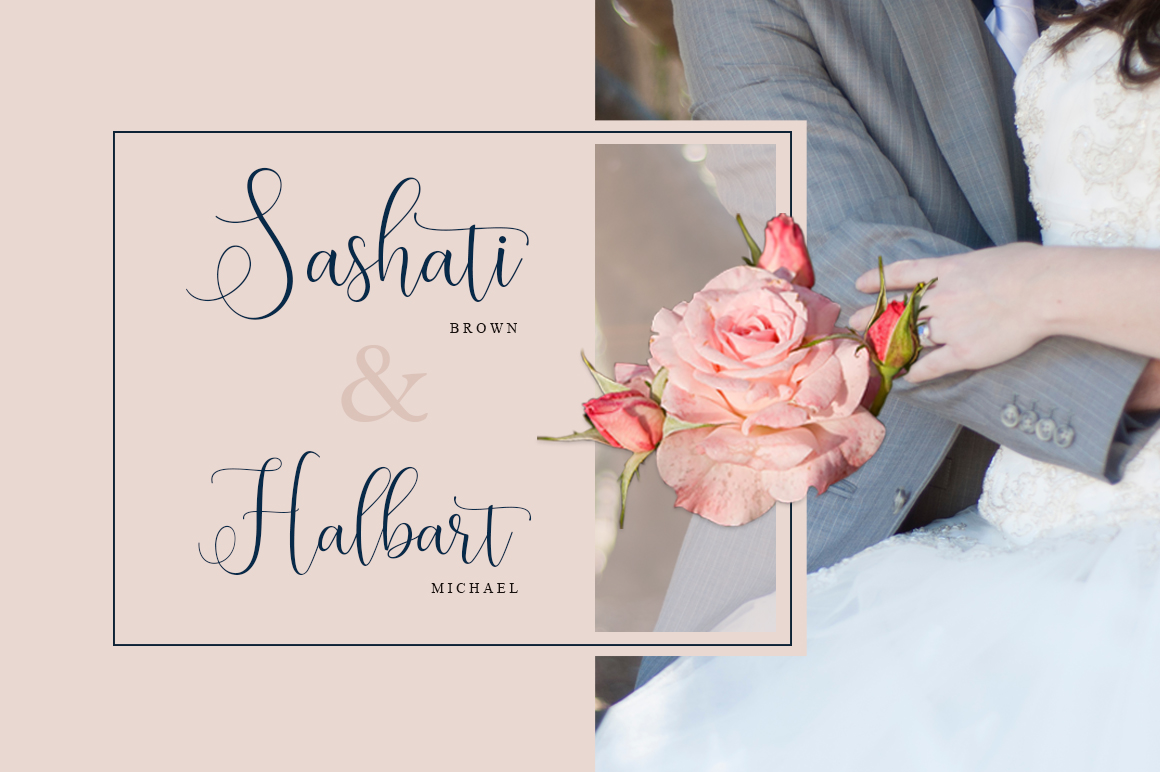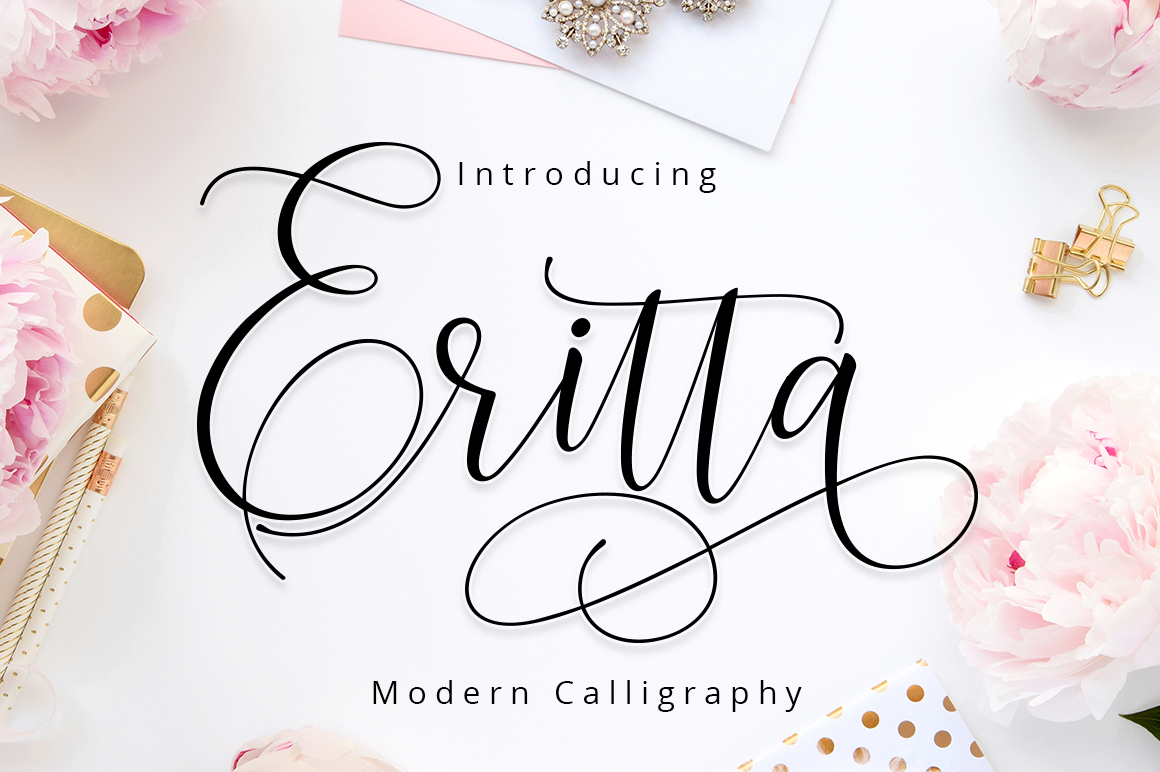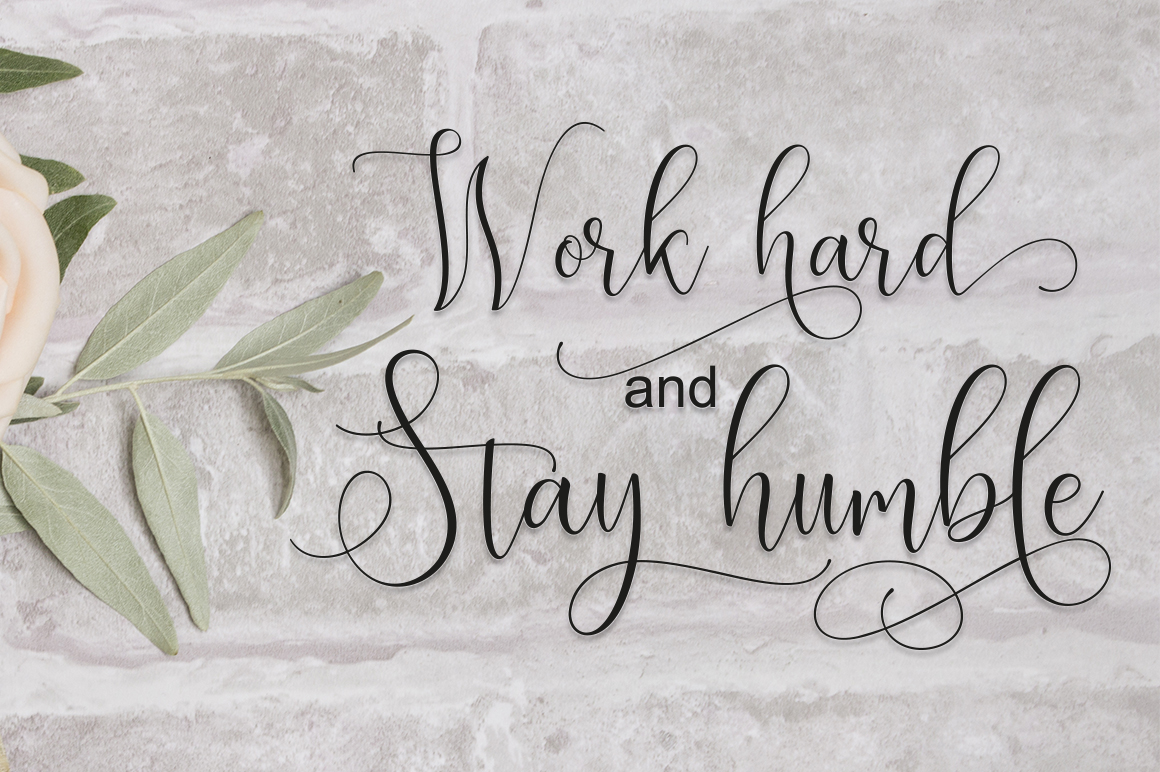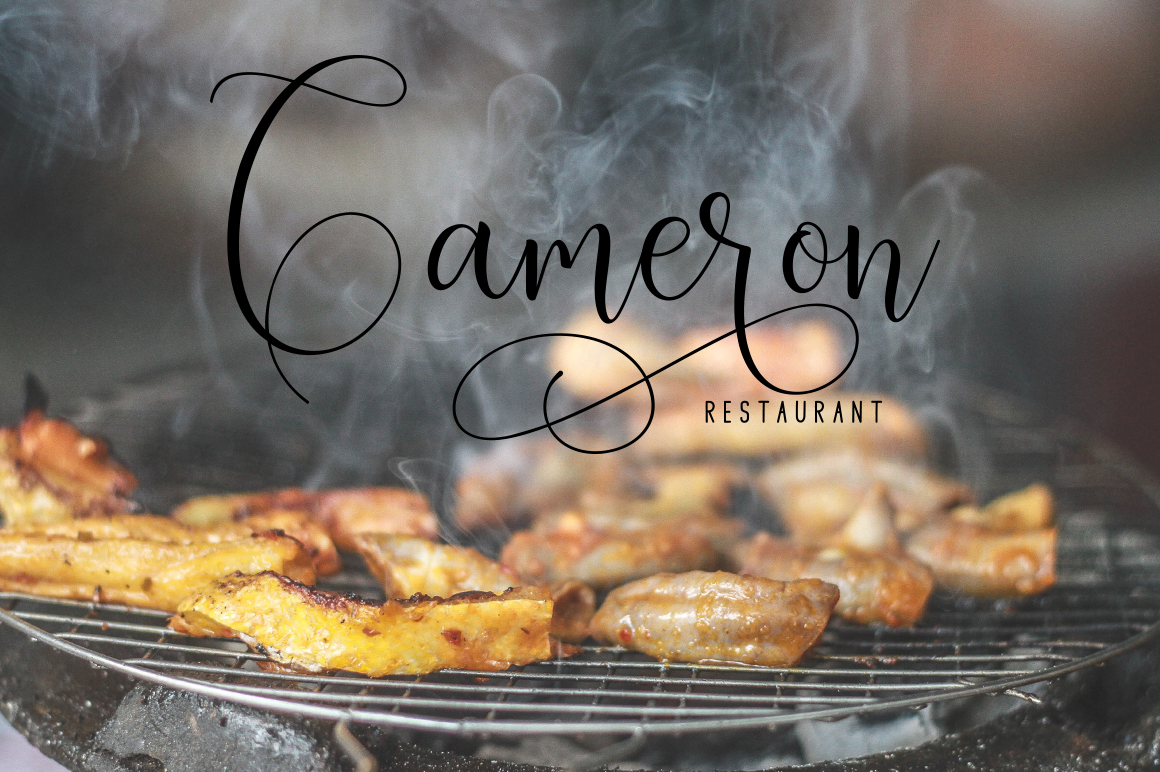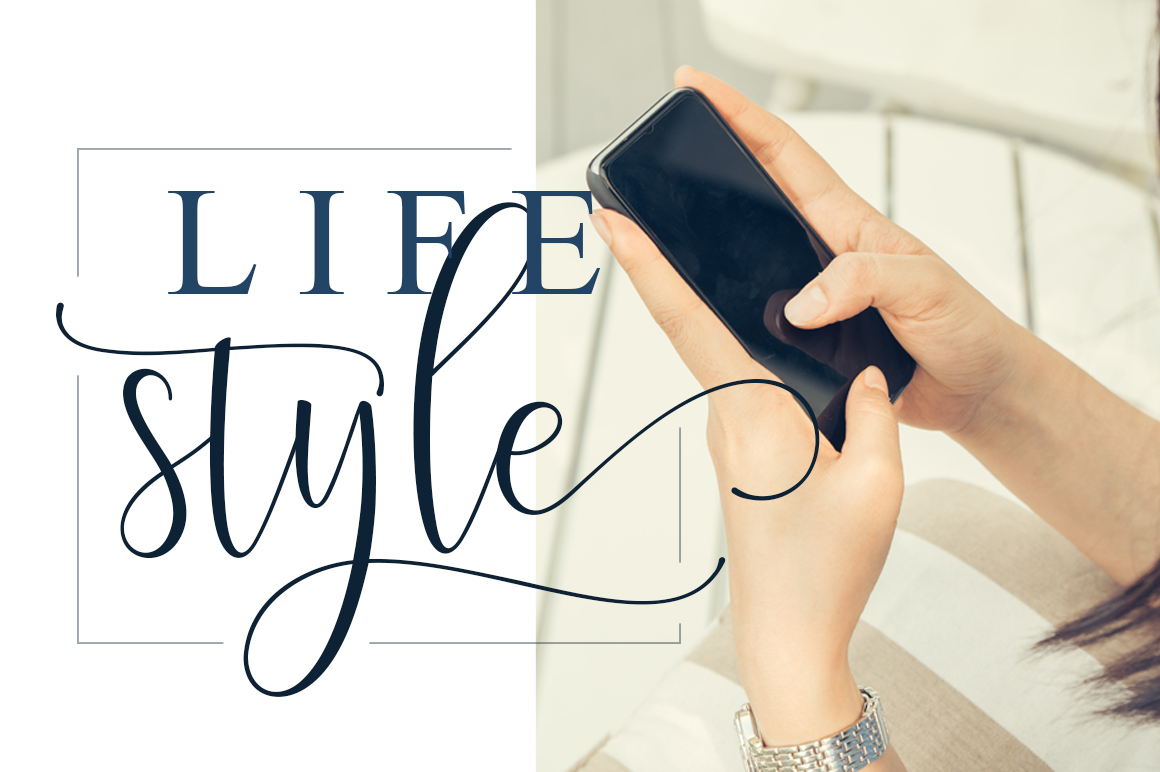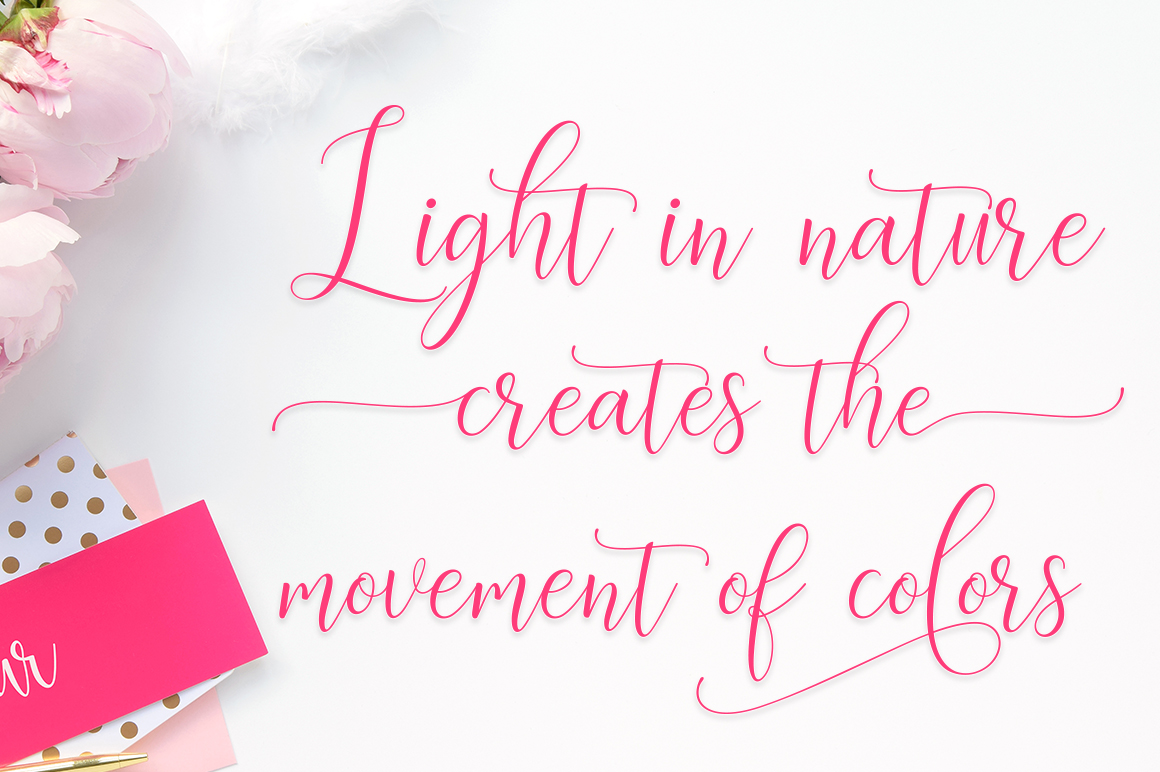
Eritta Font: Elevate Your Designs with Elegance and Flair
In the world of typography, few fonts manage to strike a balance between elegance and playfulness. The Eritta Font is one such exceptional find, a modern calligraphy-style family that can instantly transform your designs from mundane to magnificent. With its four variations – Regular, Slant, Bold, and Slant Bold – Eritta offers a versatile range of options for designers and crafters looking to add a touch of sophistication and vibrancy to their work.
The Beauty of Eritta: A Modern Calligraphy Family
The Eritta Script stands out for its fluid, calligraphic strokes that bring a sense of movement and grace to any design. Whether you’re working on a branding project, a wedding invitation, or a digital graphic, Eritta’s elegant lines and curves can add a level of refinement that’s hard to achieve with more basic fonts. The four styles available – Regular, Slant, Bold, and Slant Bold – provide a range of choices for emphasizing different aspects of your design, from the subtle elegance of the Regular style to the more pronounced drama of the Bold and Slant Bold variations.
Packed with Features: Over 560 Unique Glyphs and Swashes
What truly sets Eritta apart is its extensive feature set. This decorative font comes packed with over 560 unique glyphs, offering a wealth of options for customization and creativity. Among these glyphs are beautiful swashes, which can be used to add an extra layer of flair to your designs. Swashes are decorative strokes that can be applied to letters, often used to add elegance and personality to typography. With Eritta, you can effortlessly incorporate these swashes into your work, creating a truly unique and eye-catching effect.
Transform Your Designs in Seconds
The real magic of Eritta lies in its ability to quickly elevate your designs. With just a few clicks, you can move from a simple, straightforward look to a more elaborate and sophisticated one. This is particularly useful for designers working under tight deadlines or for crafters who want to add a professional touch to their projects without spending hours selecting and arranging different elements. Eritta’s versatility and expressiveness make it an invaluable tool in any designer’s or crafter’s toolkit.
Ideal for a Variety of Projects
Eritta’s broad range of applications makes it a go-to font for various projects. Here are a few examples of where Eritta can make a significant impact:
- Branding and Logotypes: Use Eritta to create a memorable and elegant brand identity that stands out from the competition.
- Wedding and Event Invitations: Add a touch of romance and sophistication to your invitations with Eritta’s beautiful calligraphic style.
- Digital Graphics and Social Media: Elevate your social media posts, banners, and digital graphics with a font that commands attention and exudes professionalism.
- Packaging and Product Design: Stand out on store shelves with packaging that features elegant and eye-catching typography.
The Eritta Font is more than just a decorative font – it’s a design solution that can breathe new life into your projects. With its modern calligraphy style, range of variations, and extensive set of glyphs and swashes, Eritta offers the perfect blend of elegance and versatility. Whether you’re a professional designer or a skilled crafter, Eritta provides the tools you need to create stunning, one-of-a-kind designs that capture attention and leave a lasting impression.
- Experiment with Different Styles: Try out each of Eritta’s four variations to see which best suits your project’s tone and aesthetic.
- Play with Swashes: Don’t be afraid to get creative with Eritta’s swashes. They can add a surprising amount of personality to your text.
- Mix and Match: Combine Eritta with other fonts for interesting contrasts, or use it as a standalone font to make a bold statement.